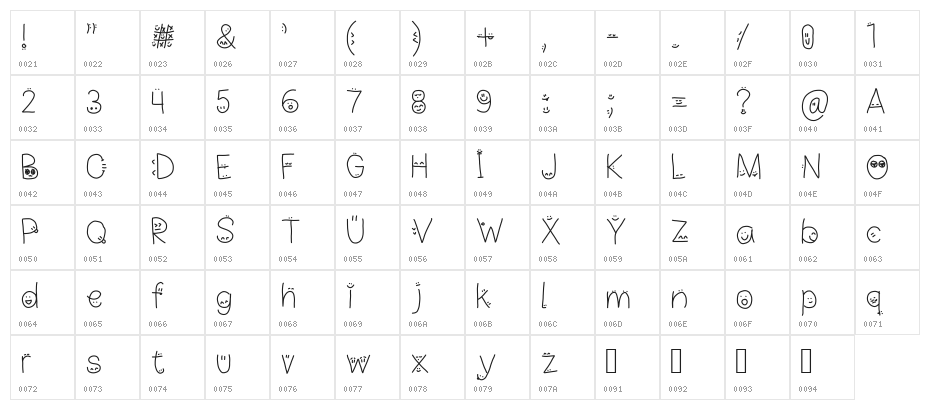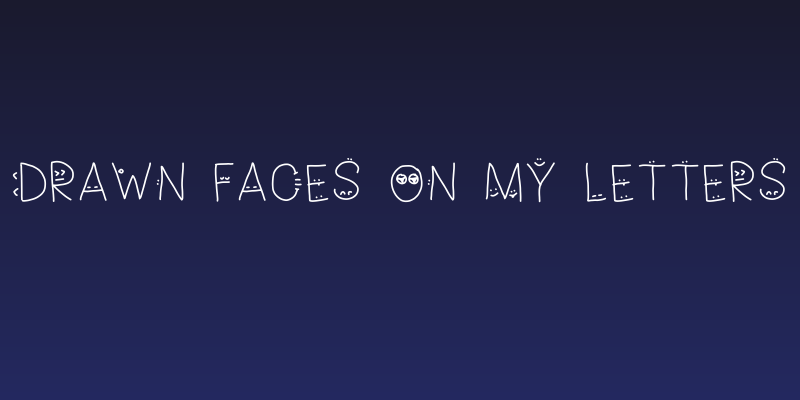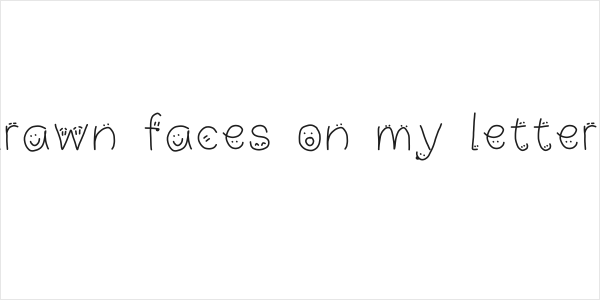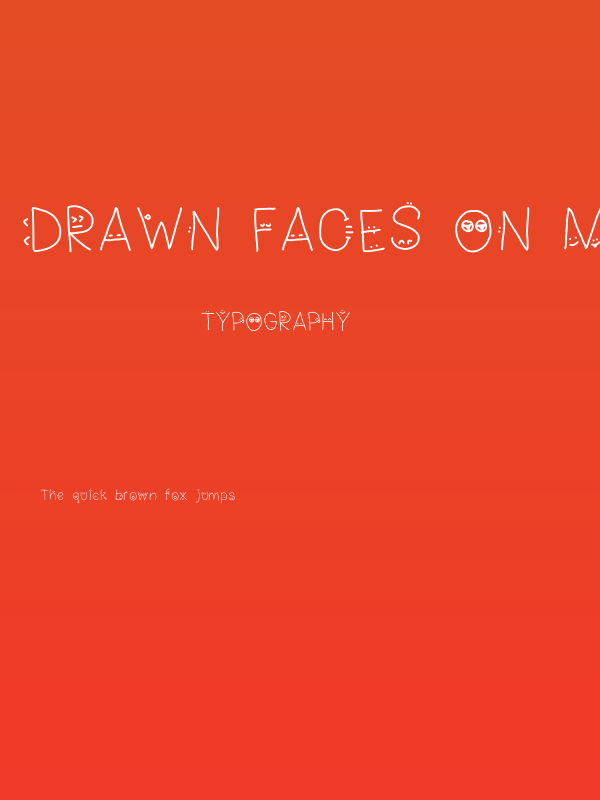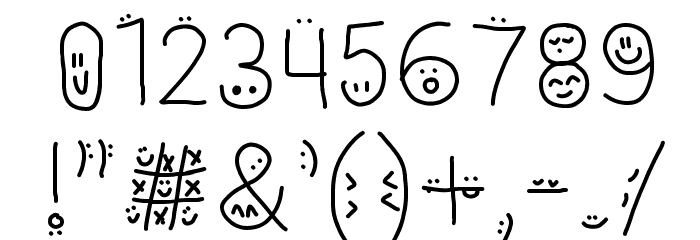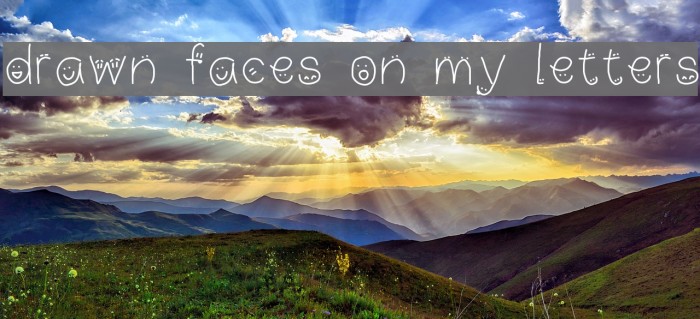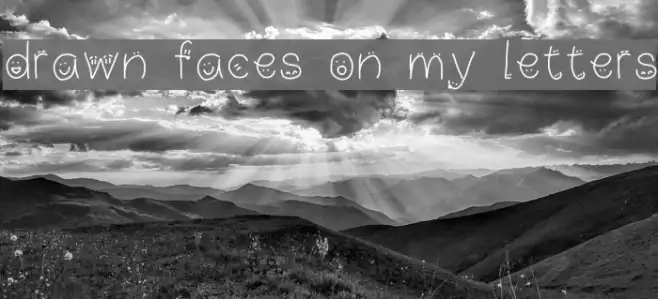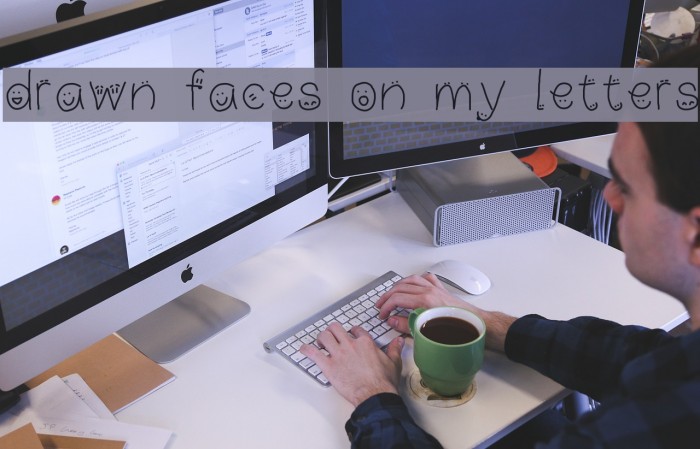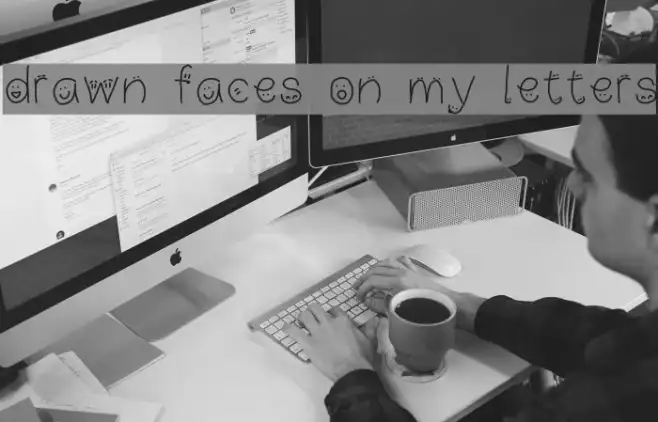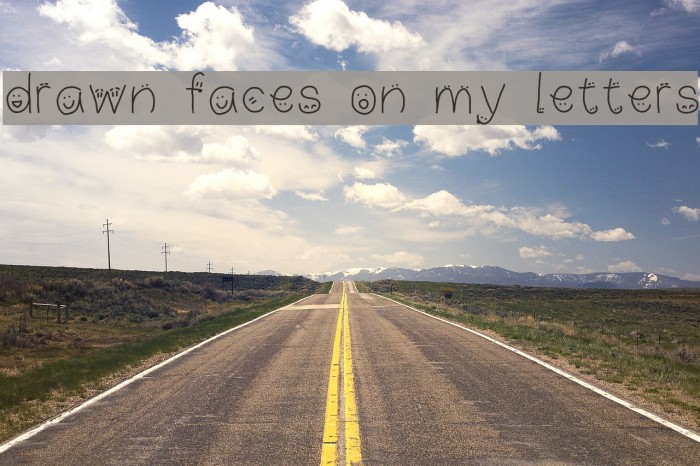
drawn faces on my letters Font
drawn faces on my letters Description
This whimsical and playful font features letters and numbers adorned with charming, hand-drawn faces. Each character is uniquely crafted with a light-hearted and humorous touch, making it perfect for projects that aim to convey a sense of fun and creativity. The strokes are uneven and organic, adding to the casual and friendly vibe of the font. The special characters continue this theme, incorporating expressive faces and playful elements. This font is ideal for children's books, playful branding, or any design that seeks to evoke joy and imagination.
| Overall Style | Playful, Whimsical |
| Use Case | Headlines, Logos, Creative projects |
| Proposed Projects | Children's books, playful branding, greeting cards, and creative posters. |